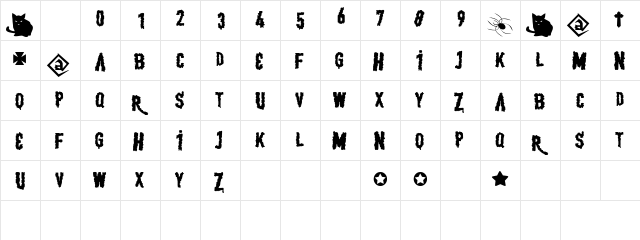
BJ REVOLTA Regular Font Preview
BJ REVOLTA Regular
Design Context for BJ REVOLTA Typeface
BJ REVOLTA is a composed and adaptable typeface that performs quietly and consistently across a wide range of design contexts.